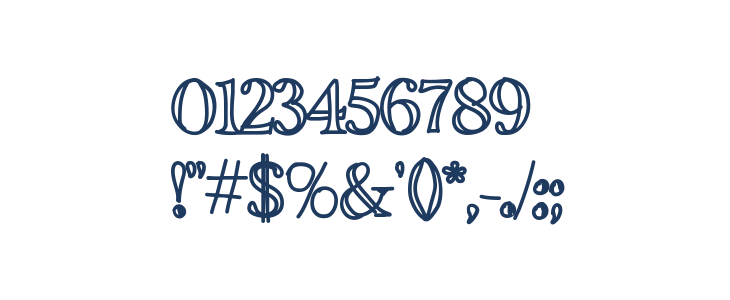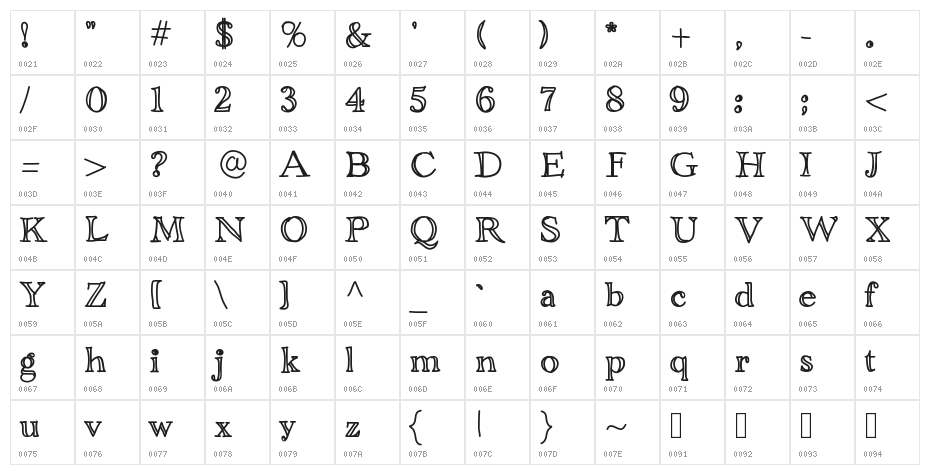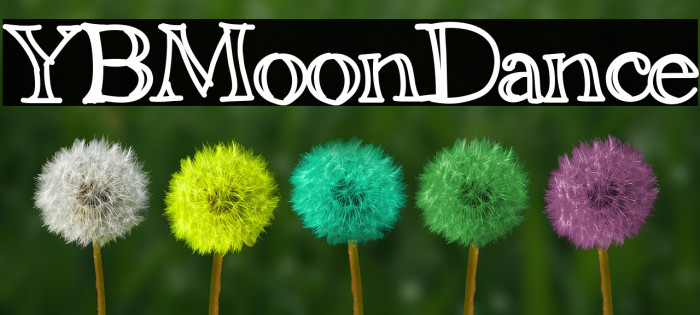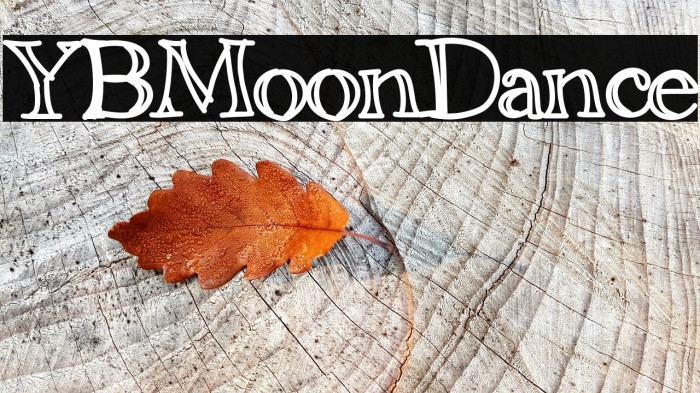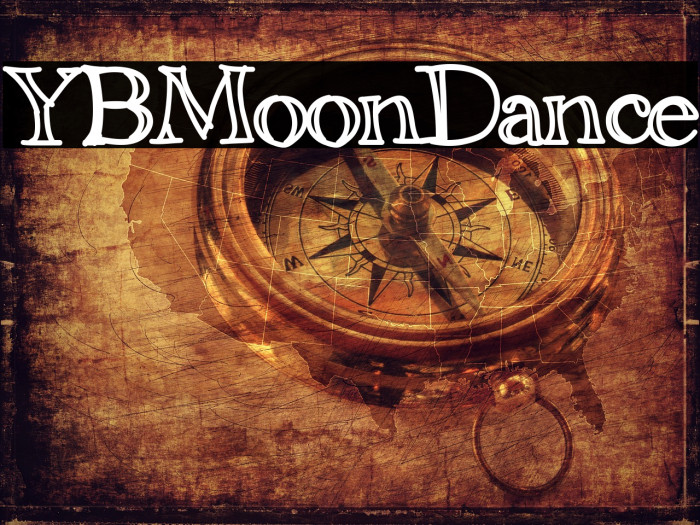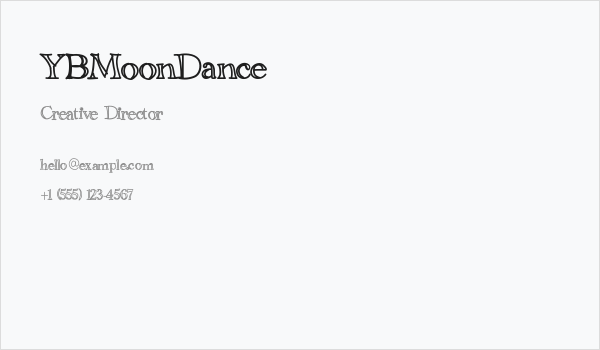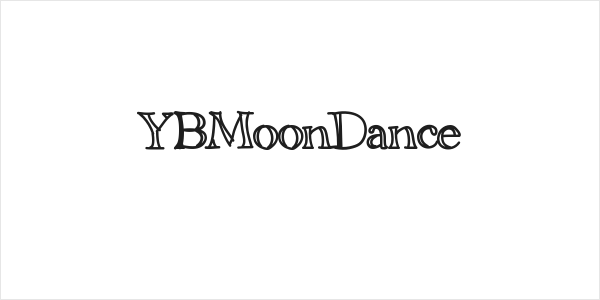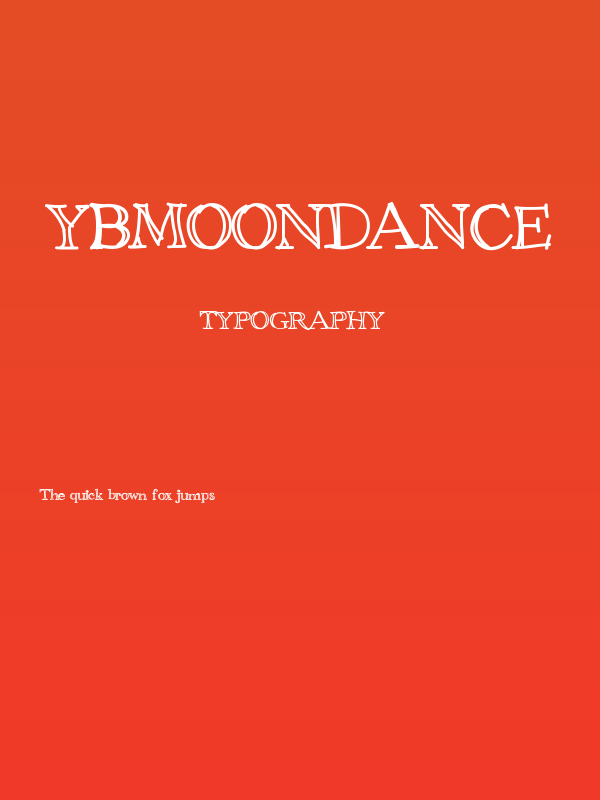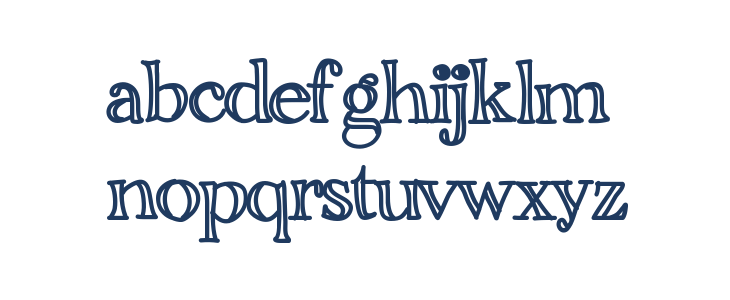
YBMoonDance Font
YBMoonDance Description
This font features a whimsical and playful design, characterized by its hand-drawn appearance and unique, irregular strokes. The letters exhibit a slightly uneven baseline, adding to its casual and artistic feel. The uppercase letters are bold and prominent, while the lowercase letters maintain a consistent style with a touch of flair. Numbers and special characters are crafted with the same playful aesthetic, ensuring a cohesive look across all elements. The font's overall style is decorative, making it suitable for creative projects that require a fun and engaging typeface.
YBMOONDANCE UPPERCASE
YBMOONDANCE LOWERCASE
YBMOONDANCE OTHER CHARS